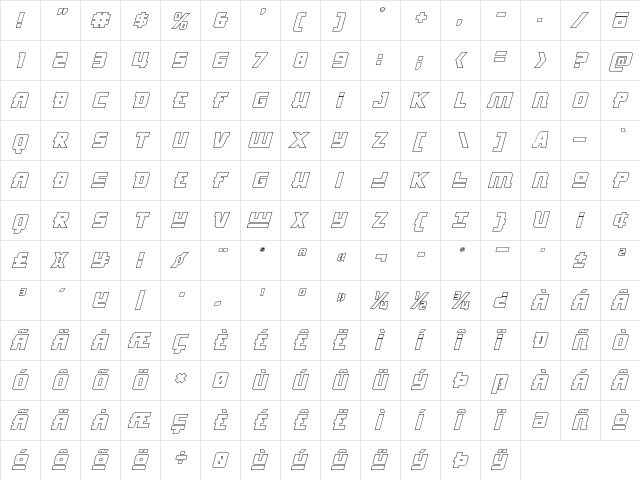
Hong Kong Hustle Outline Italic Italic
Design Context for Hong Kong Hustle Outline Italic Typeface
Hong Kong Hustle Outline Italic brings ornamental detail and strong personality to headlines and identities, where visual impact matters more than quiet functionality. The slanted form adds forward momentum and visual energy.
Font Pairing: Pair with a clean neutral sans-serif for body copy to let Hong Kong Hustle Outline Italic's character lead without overwhelming the composition.
Pro Tip: Use Hong Kong Hustle Outline Italic exclusively at display sizes — it was designed to be seen, not read at length. Let a neutral companion handle body copy.